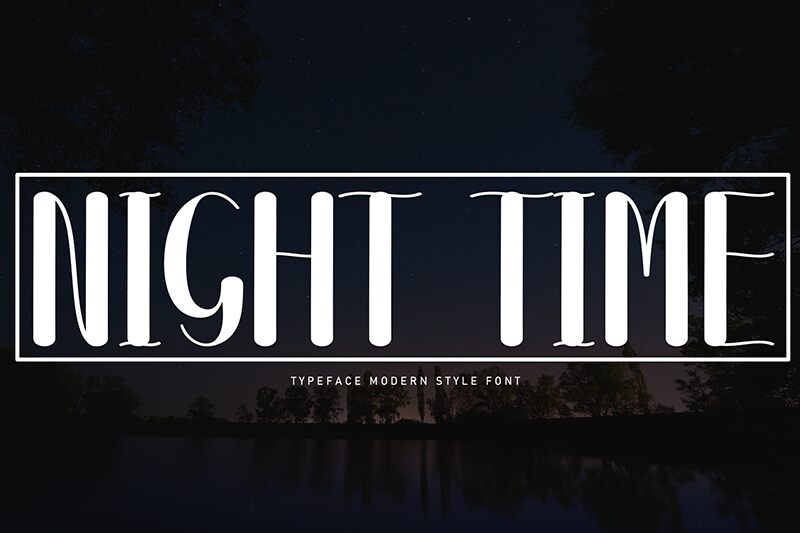
Night Time
The Night Time typeface by Andi Moz is a handwritten condensed font that’s available in OTF format. Its modern aesthetic features sharp, solid lines in a mixture of uppercase letters. Night time is extremely versatile and can be used for logo and branding design, advertising headlines and UX, poster printing, t-shirt designs, magazines and print projects, flyer design, business cards, website headers etc.